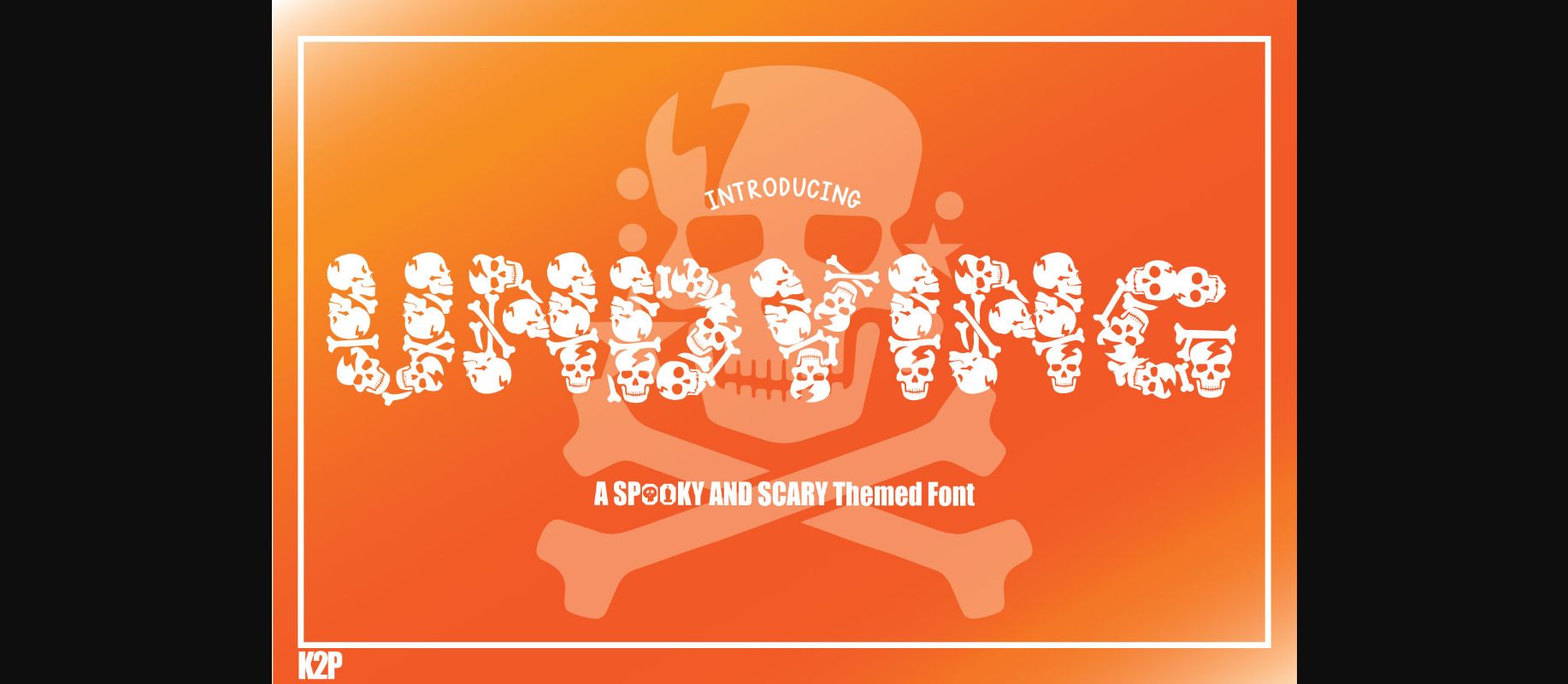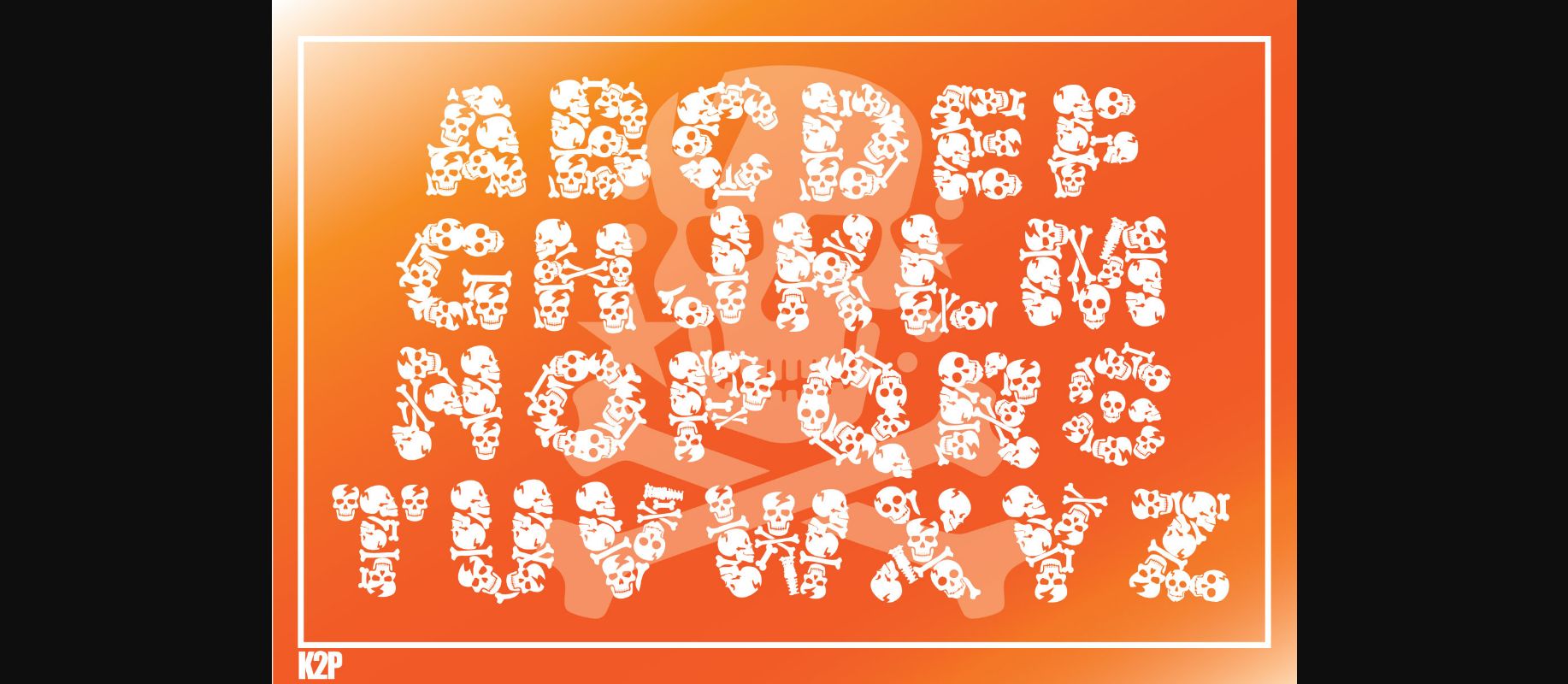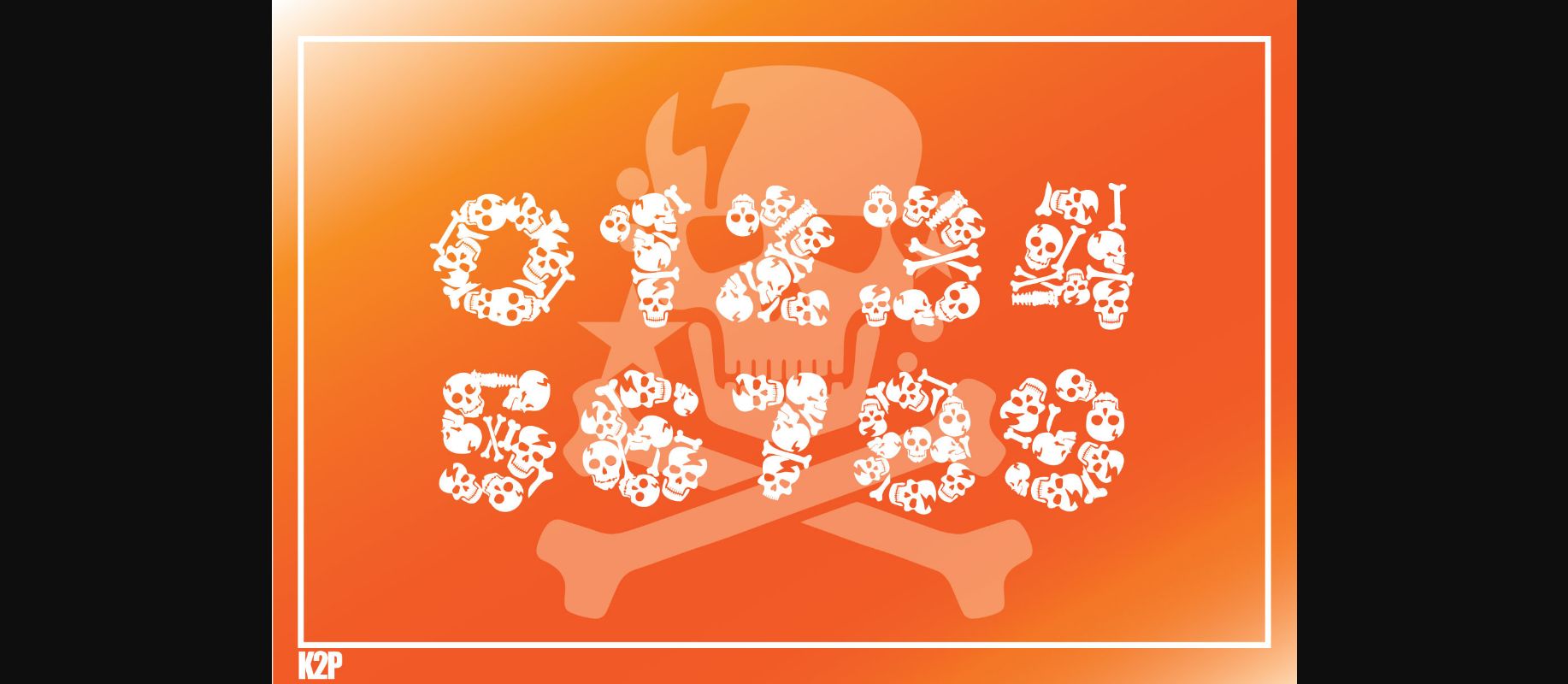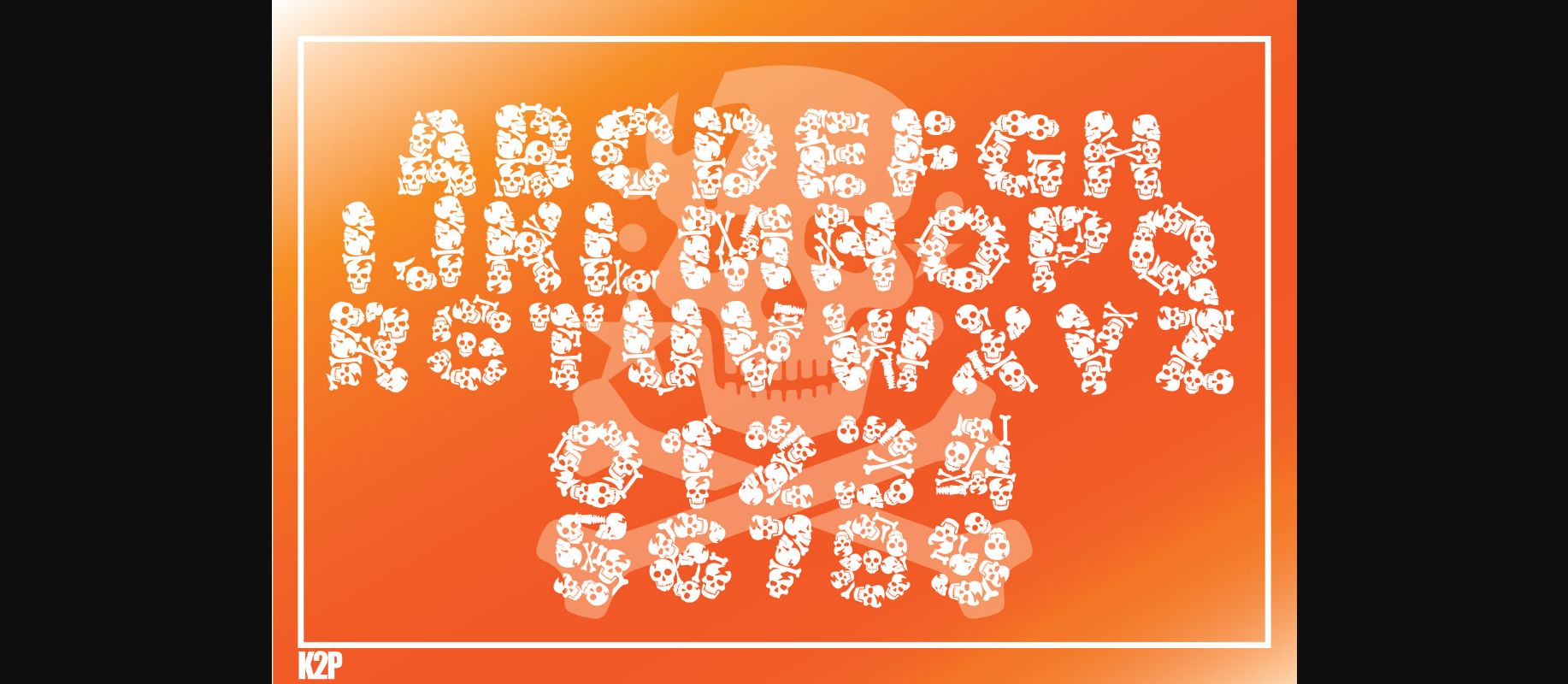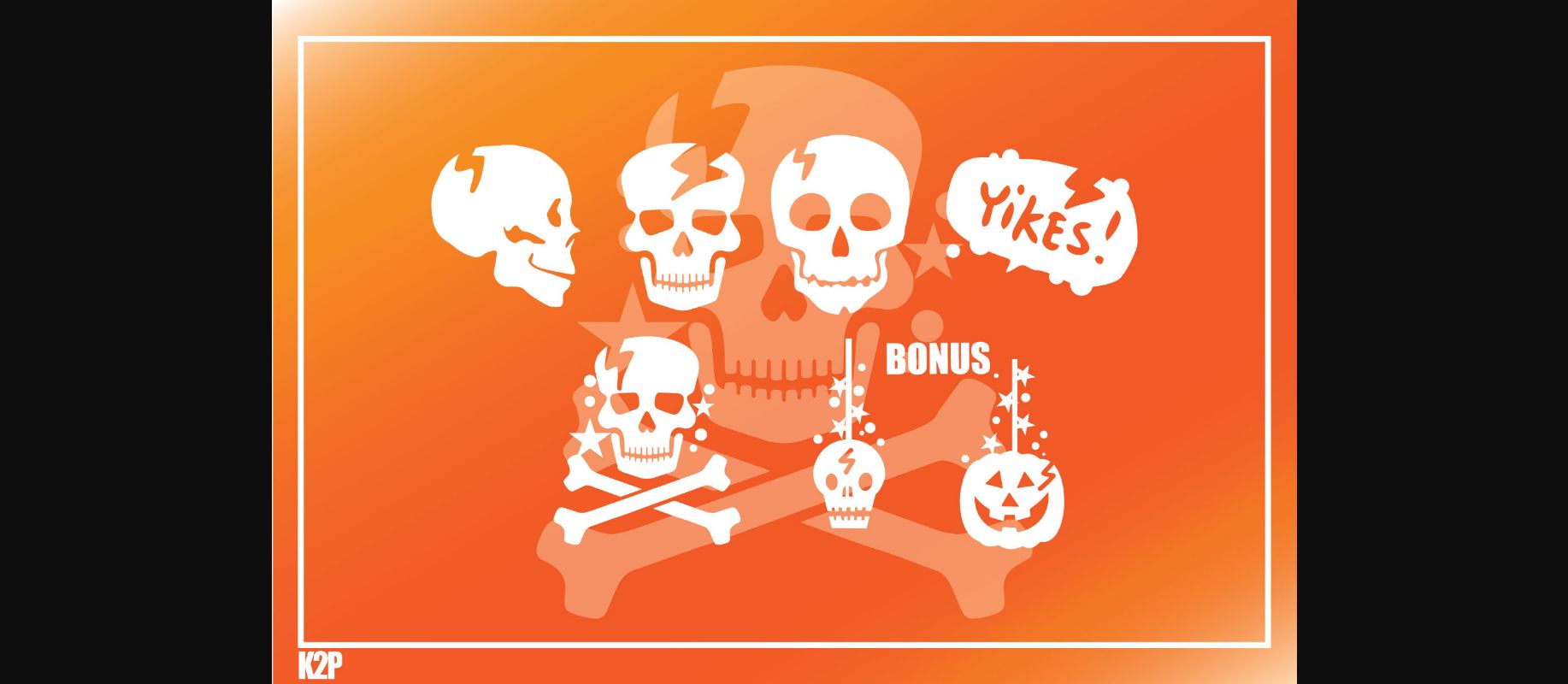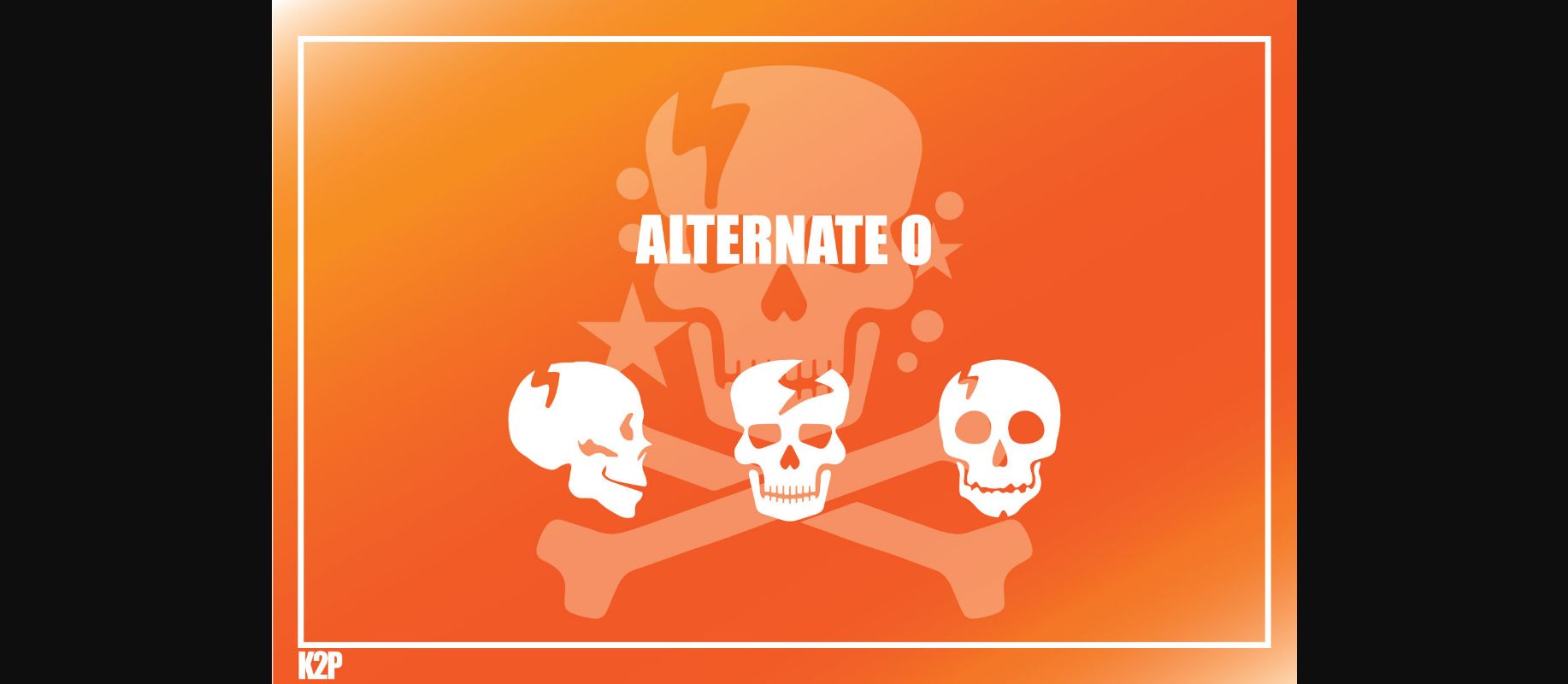
HomeDecorative FontsUndying Font Decorative Fonts Undying Font FacebookXPinterestWhatsApp 1 of 8 ... Undying Font Poster 2... Undying Font Poster 3... Undying Font Poster 4... Undying Font Poster 5... Undying Font Poster 6... Undying Font Poster 7... Undying Font Poster 8... About Undying Font Undying is a thick-lettered and spooky decorative font. It is perfectly suitable for any Halloween-related project or crafty idea! The only limit is your imagination. DOWNLOAD NOW People also explored Heather Grass Green Bella Canvas 3001 Tendencies Font People Silhouettes 2.0 Font Ketropolitan Font Summer of Memories Font Cracked Earth Glyphs Font Handmade Font Cresspine Font Widges 311 0 TagsUndyingUndying Font Previous articlePlaywood FontNext articleBlack Monster Font LEAVE A REPLY Cancel reply Comment: Please enter your comment! Name:* Please enter your name here Email:* You have entered an incorrect email address! Please enter your email address here Website: Save my name, email, and website in this browser for the next time I comment. Personal Use Free Calega Personal Use Free Read more about this font Kitsor Rauttie Personal Use Free Read more about this font Bright Dreams Personal Use Free Read more about this font Daisy Script Personal Use Free Read more about this font BLOG Free vs Paid Fonts: Why Investing in Premium Fonts Is Worth It Free vs Paid Fonts: Why Premium Fonts Are Worth It in 2025 The debate of free vs paid fonts continues in the design world. While... 5 Fonts That Will Dominate Design Trends in 2026 Elegant Wedding Invitation Fonts – Handwritten & Script Fonts Best Fonts for T-Shirt Design – Top 2025 Picks